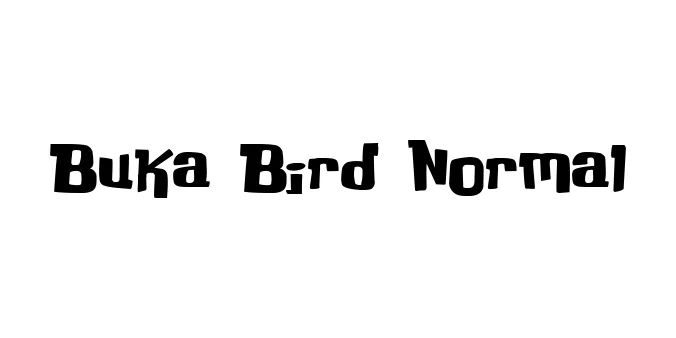
Buka Bird Normal
Designed by Apostrophic Labs
Buka Bird Normal is a distinctive display typeface created by the renowned font design collective Apostrophic Labs. It features a unique, organic yet geometric structure that draws inspiration from avian motifs and tribal patterns. The font's character set is defined by sharp terminals and varied stroke widths, creating a dynamic rhythm that bridges the gap between traditional serif aesthetics and experimental display typography.
Since its release, Buka Bird has gained popularity among designers seeking a visual identity that feels both natural and structured. It is widely used in creative branding, editorial layouts, and artistic posters. Its ability to command attention while maintaining a sense of handcrafted elegance makes it a versatile tool for projects that require a touch of eccentricity and cultural depth.
Buka Bird Normal Best Uses
Perfect for creating a unique and memorable brand identity with a tribal or organic feel.
Ideal for eye-catching headlines and artistic event promotional materials.
Works well for magazine headers and creative layout highlights.
A great choice for fiction, poetry, or art-centric book designs.